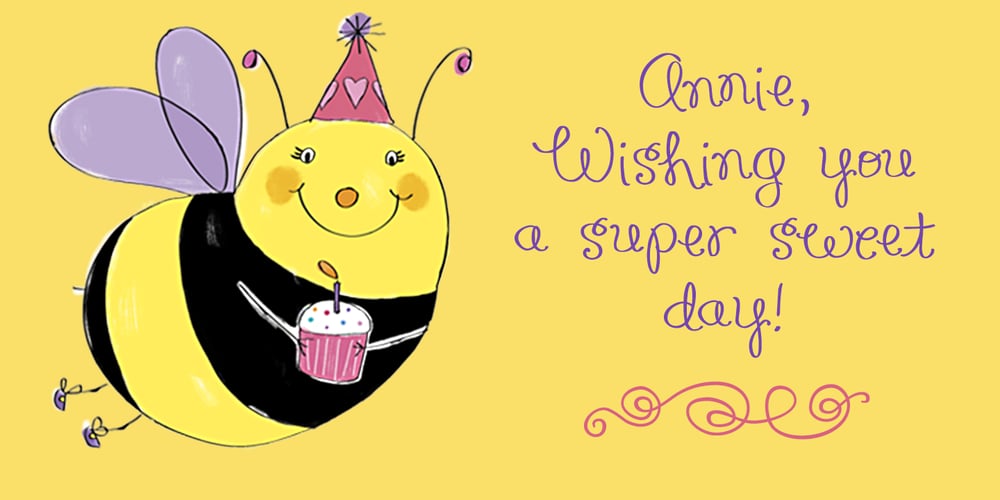
Honey Bee Font Family was designed by Amy Dietrich and published by Atlantic Fonts. Honey Bee contains 1 styles and family package options. Honey Bee is sweet. It’s loopy, playful, and hand drawn with a lively set of double letter ligatures. Use it for baby announcements, party invitations, greeting cards, children’s books, packaging, or anything creative.